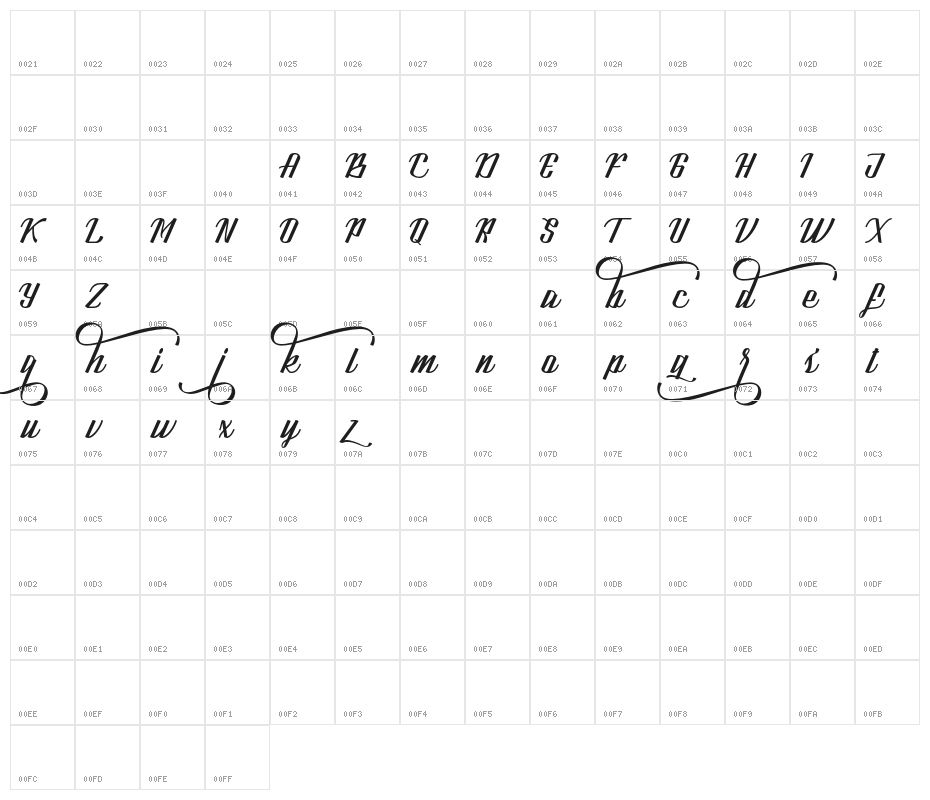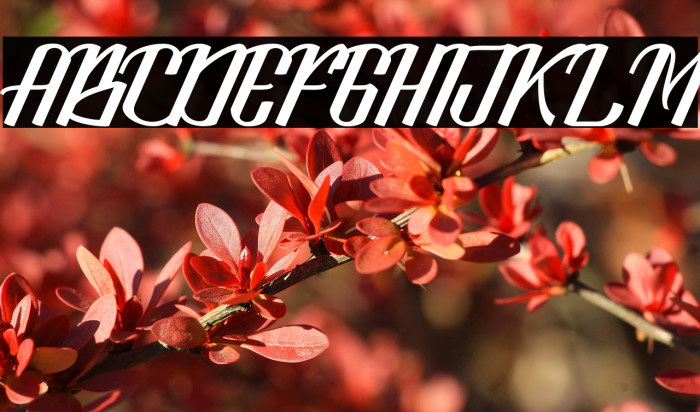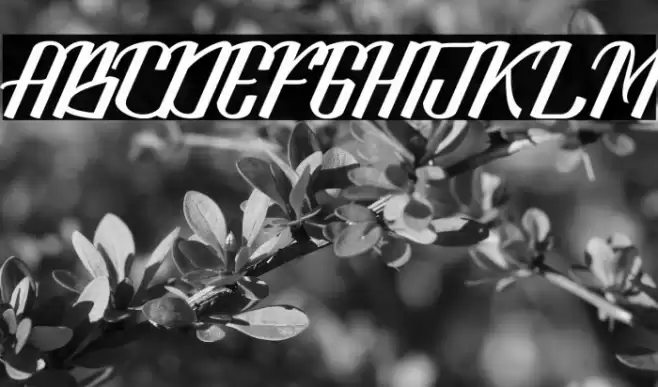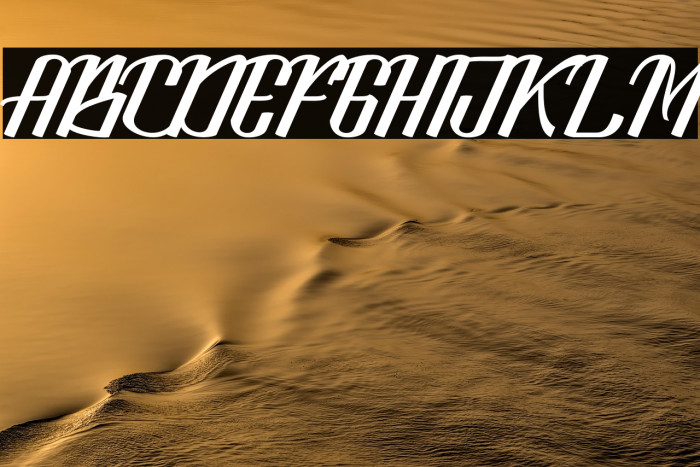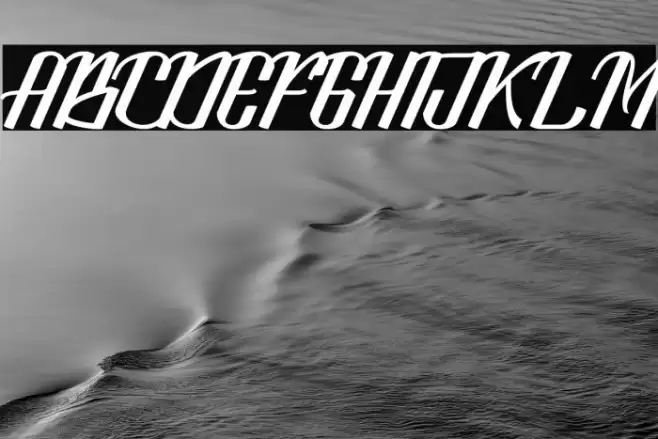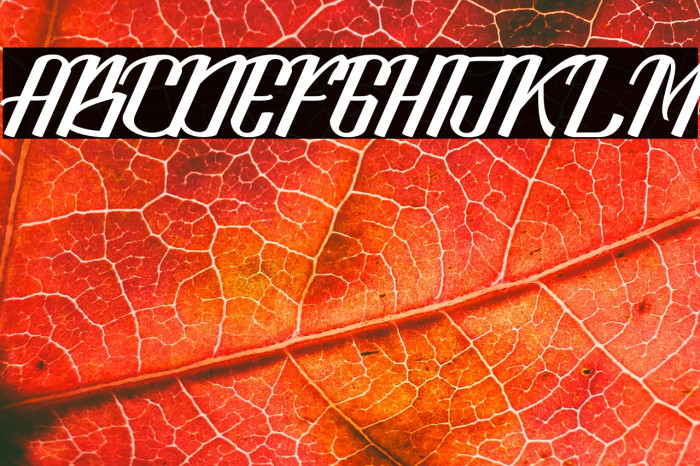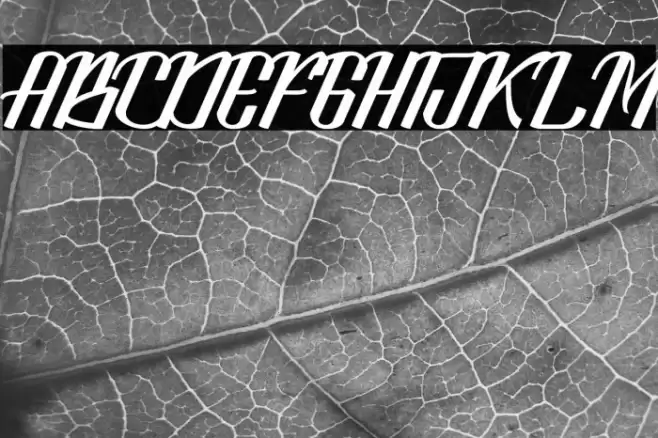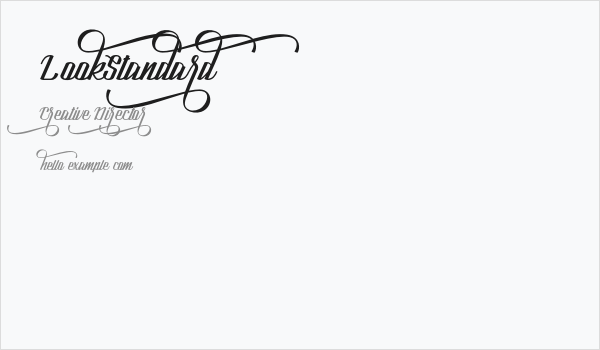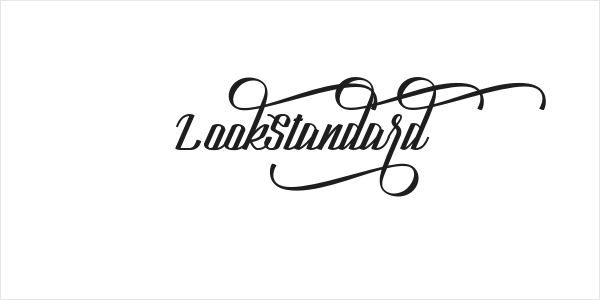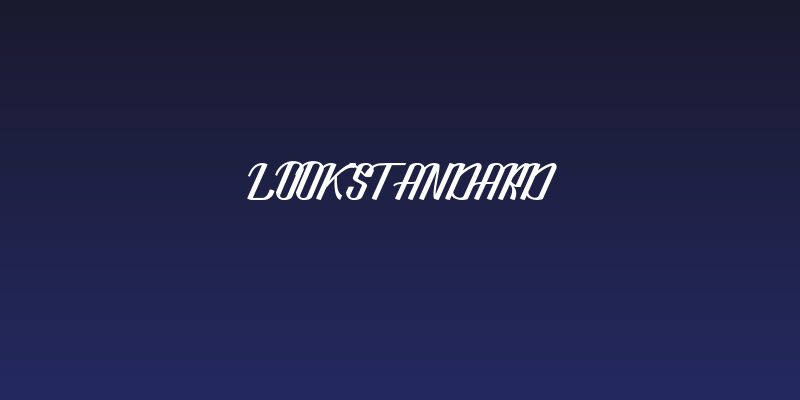
LookStandard Font
LookStandard Description
This font exhibits a dynamic and energetic script style, characterized by its bold and flowing letterforms. The uppercase letters are tall and slightly condensed, with sweeping curves and sharp angles that create a sense of movement. The lowercase letters maintain a consistent flow, connecting smoothly with each other, which enhances the cursive appearance. The overall design is highly decorative, making it suitable for eye-catching displays. The numbers and special characters are crafted with the same attention to detail, ensuring a cohesive look across all glyphs.